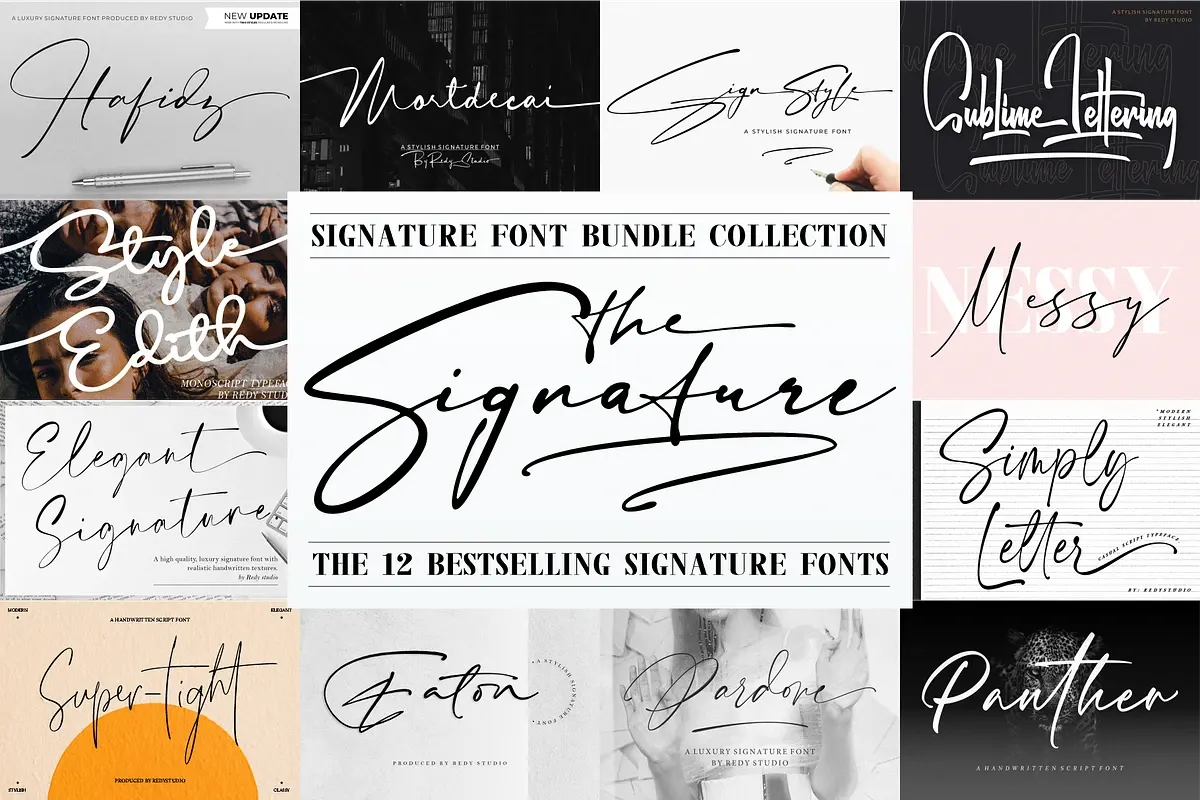
The Signature Font Bundle Collection Free Download
The Signature Font Bundle Collection Free Download is a luxurious set of handcrafted script fonts designed to bring elegance and personality to your branding. Please note, you are required to purchase this font bundle for commercial use. It is available for free download for testing and personal projects only.
Featuring a curated selection of signature-style fonts, this bundle is perfect for logos, personal branding, wedding invitations, fashion labels, and social media content. Each typeface in the collection delivers smooth strokes, natural flow, and authentic handwritten charm that elevates any design.